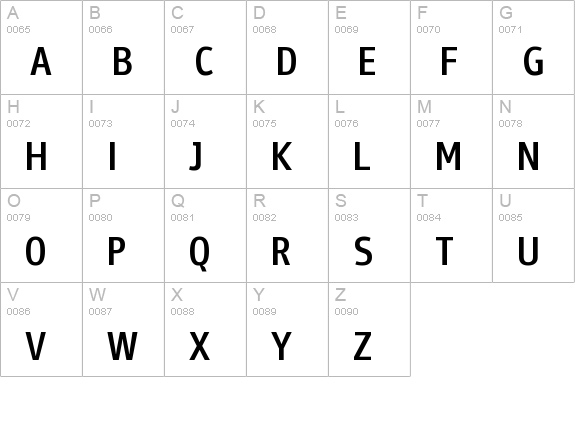
PFBulletinSansPro-Medium is a balanced, medium-weight variant in the PFBulletinSansPro typeface family \xE2\x80\x94 well suited to sub-headlines, navigation, and balanced editorial work.
PFBulletinSansPro-Medium font is a versatile and modern typeface that strikes the perfect balance between professionalism and readability. With its medium weight, this font exudes a sense of confidence and authority, making it ideal for a wide range of design projects. Whether you're working on a website, a brochure, or a presentation, PFBulletinSansPro-Medium font will help your content stand out and make a lasting impression. The best part? This exceptional font is available for free download at FontsMarket.com. Take advantage of this opportunity to enhance your designs with a high-quality typeface that is not only stylish but also easily accessible. Add a touch of sophistication to your work with PFBulletinSansPro-Medium font and elevate your design projects to the next level.